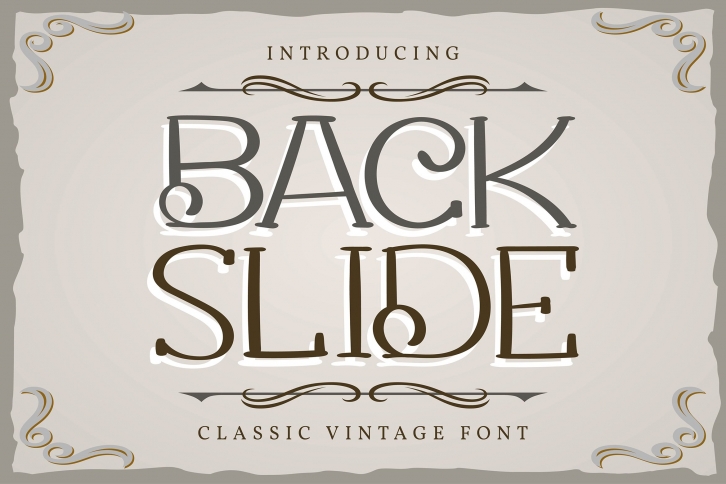
Back Slide is a gorgeous font that was realeased on April 4, 2021. The font can be used in many style contexts and design environments. Perfect for invitations, magazines, websites, logos, and more! It was designed by Vunira and the file size is 5.6 MB. Thanks for checking out this font!